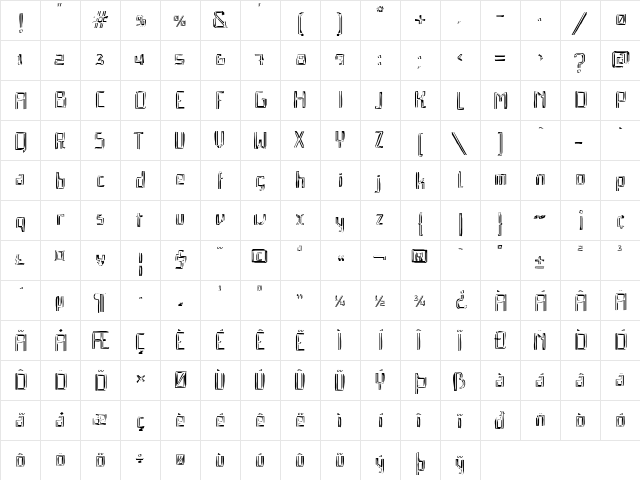
Qebrada Regular
| Designer | deFharo |
Design Context for Qebrada Typeface
Qebrada is a composed and adaptable typeface that performs quietly and consistently across a wide range of design contexts.